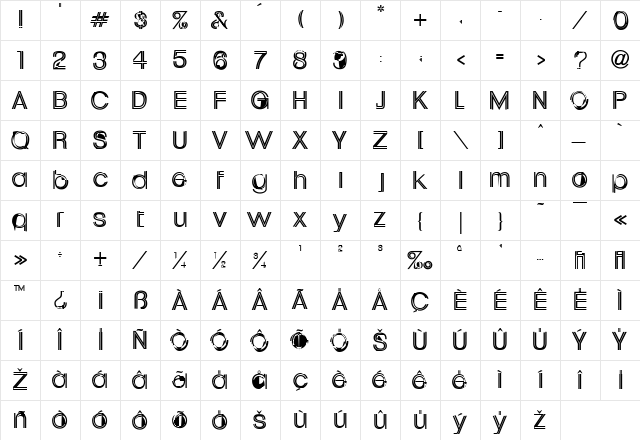
Uptight Normal Free Font
Uptight Normal
Uptight Family
Design Context for Uptight
Uptight is a composed and adaptable typeface that performs quietly and consistently across a wide range of design contexts.